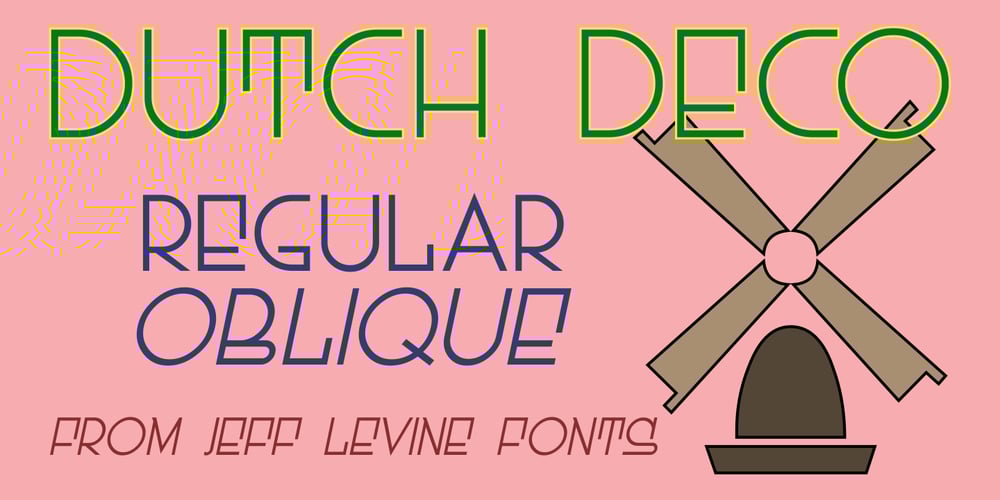
Dutch Deco JNL Font Family was designed by Jeff Levine and published by Jeff Levine. Dutch Deco JNL contains 2 styles and family package options. Although the Art Deco movement is generally attributed to the 1930s and 1940s, a number of design influences were showing up during the late 1920s in what is referred to as the Art Nouveau period. The Dutch illustrator Anton Kurvers’ hand lettering on the front cover of the (1927) magazine “Het Vlaamsche Volstooneel” clearly shows the clean lines and Avant Garde geometrics that foreshadow Art Deco. This attractive pre-Deco lettering has been recreated digitally as Dutch Deco JNL, and is available in both regular and oblique versions.